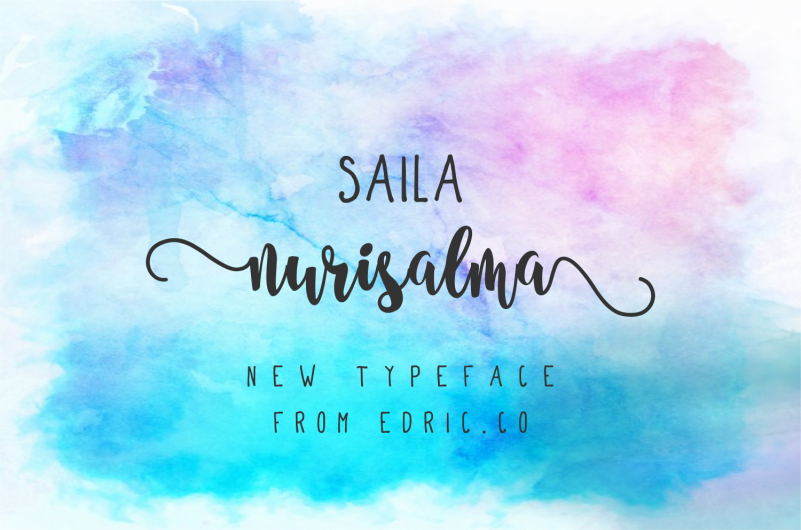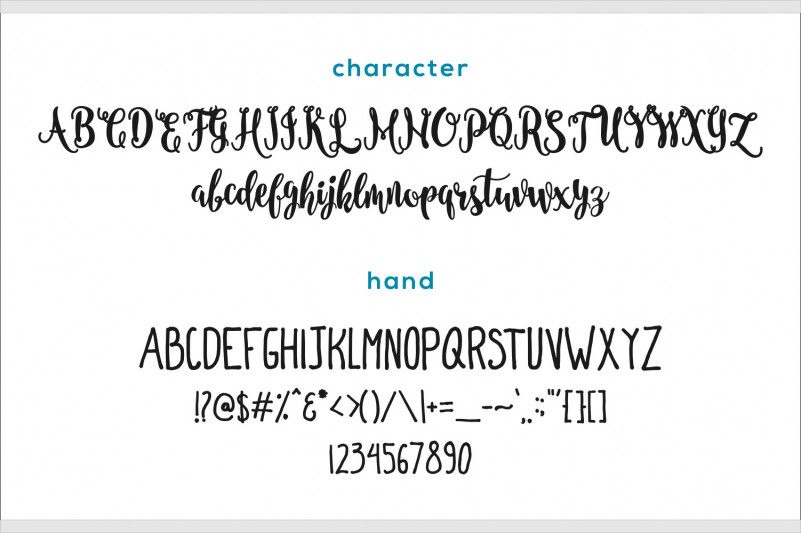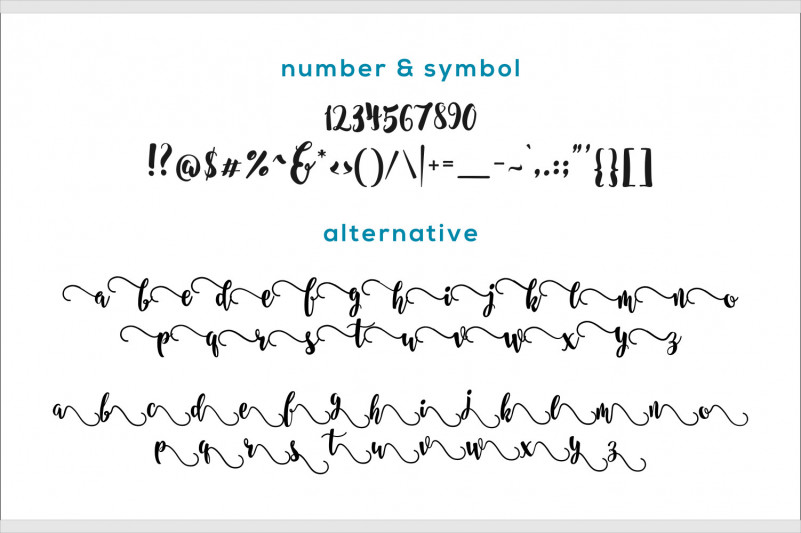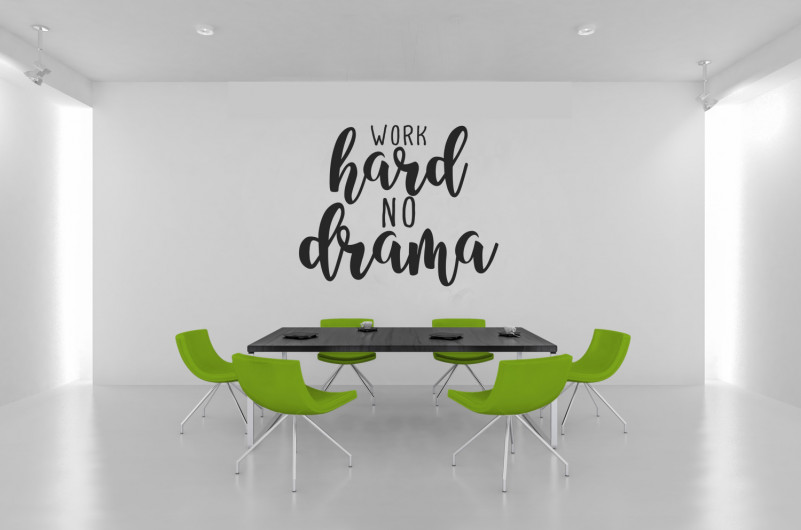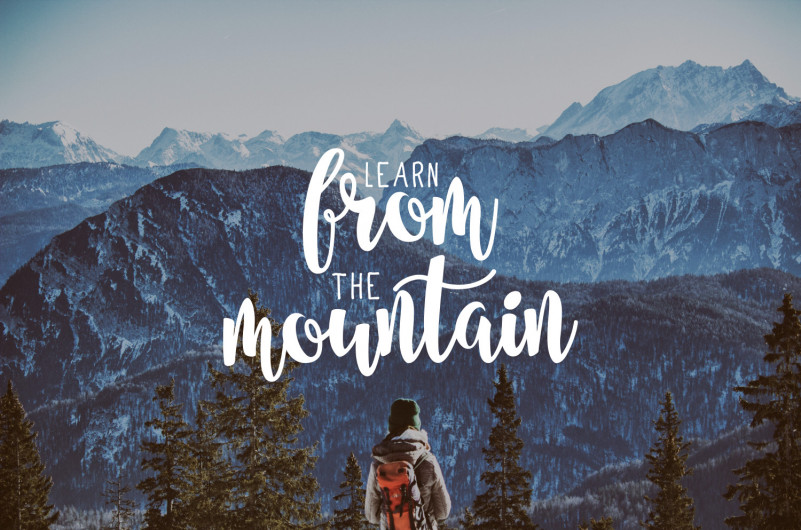
Saila Nurissalma Script Font
Saila Nurissalma – Two fonts with different styles. One : Handwriting script font Two : A look like sans font
All the two, made by hand, with love from Indonesia.